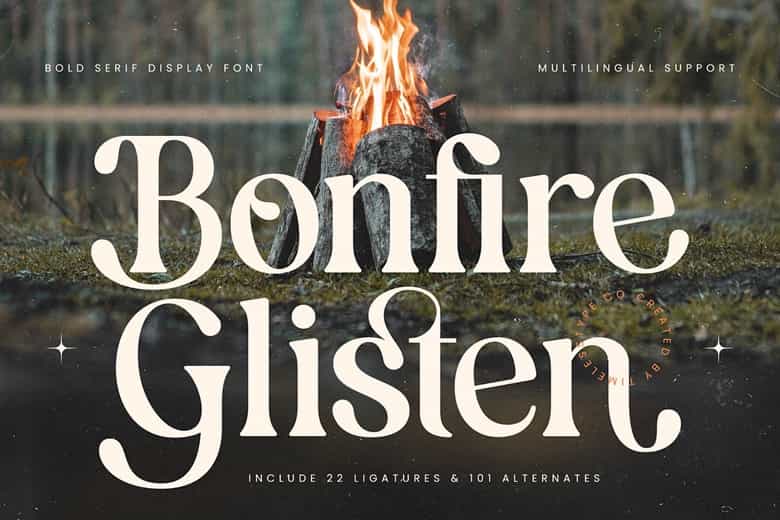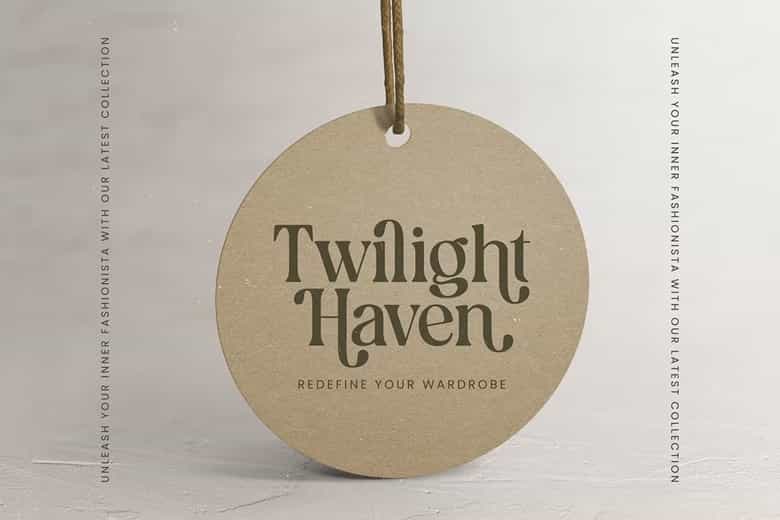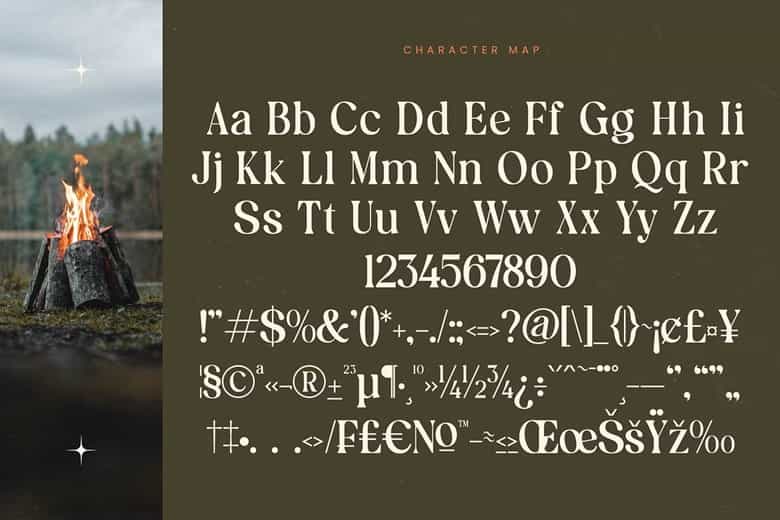
Bonfire Glisten is a new modern display serif font, from Timelesstype.Co, It’s suitable for any projects such as: logos, branding projects, homeware designs, product packaging, posters, shopping bags, t-shirts, book covers, name card, invitation cards, greeting cards, special events and many of your other luxury and beautiful projects that requires a touch of luxury serif.